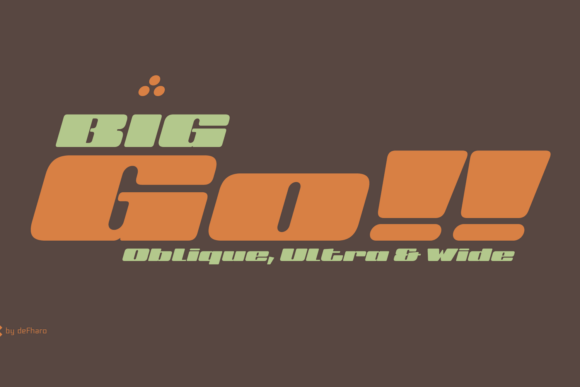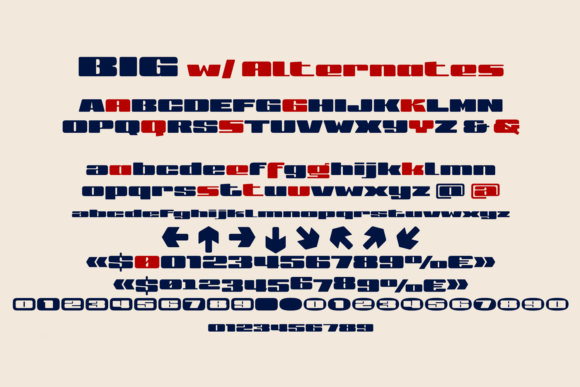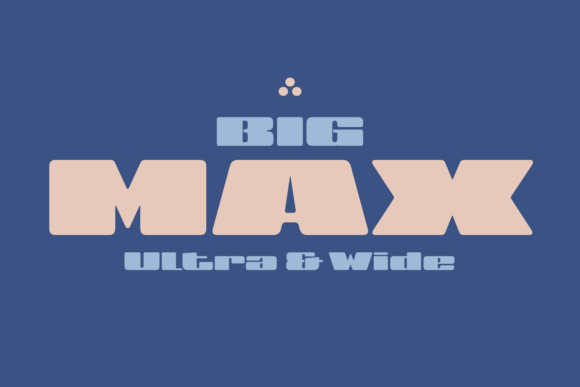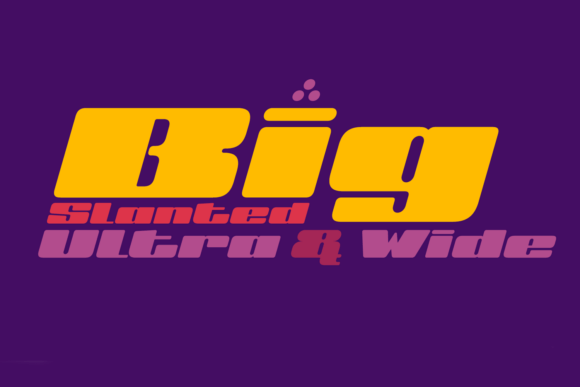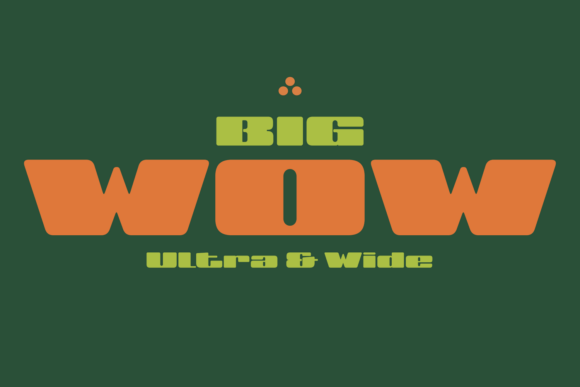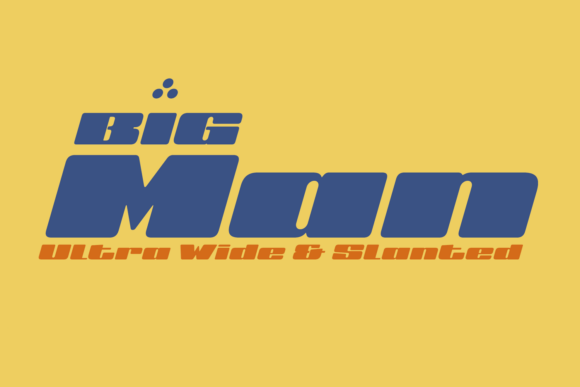
The Moment of Creative Truth: When Designers Need a Font that Makes a Statement
Have you ever stared at a blank page, struggling to find the perfect font to capture the essence of your brand? The frustration is real, but what if you could unleash a font that screams ‘I’m here to make a statement’? That’s where the BIG Slant font comes in – a bold, ultra-wide, and unapologetically expressive typeface designed to dominate space with confidence and clarity.
As a designer, you understand the importance of a font that can elevate your work and leave a lasting impression. The BIG Slant font is not just a pretty face; it’s a powerful tool that can make your text stand out in a crowded market. With its unique slant and expansive proportions, this font is the perfect choice for contemporary branding, editorial headlines, and projects that demand unmistakable visual authority.
- Unique Characteristic: Features a unique, ultra-wide design that can be used to create visually striking headlines and titles
Big Ultra Wide Font Review
I recently had the chance to work with the “Big Ultra Wide Font” and here’s my honest review.
✨ **What works well:** This font is indeed big and ultra-wide, making it perfect for headings and titles. The font is bold and attention-grabbing, which can be great for drawing the user’s attention to important information. The font also supports a wide range of languages, which is a plus for multilingual designs.
✨ Another thing I liked about this font is its consistency. The font’s width is consistent across all weights, which makes it easy to use and predict how it will look in different contexts.
⚠️ **Limitations:** While the font is bold and attention-grabbing, it can also be overwhelming. The ultra-wide width can make it difficult to read in smaller sizes or in narrow columns. Additionally, the font’s boldness can make it look dated or even childish in certain contexts.
⚠️ I also found that the font’s support for certain languages is limited to a subset of characters, which can be a problem for designs that require a full range of characters.
Overall, I would say that the “Big Ultra Wide Font” is a good option for certain types of designs, but it may not be the best choice for more complex or nuanced projects.
Tips for Getting the Most Out of Big Ultra Wide Font
When using Big Ultra Wide Font, keep the following tips in mind:
– Use it sparingly, as it can be overwhelming in large quantities.
– Balance it with other fonts and design elements to create visual interest.
– Experiment with different sizes and colors to find the best combination for your design.
Big Ultra Wide Font is commonly used in:
– Headlines and titles to draw attention.
– Marketing materials, such as posters and flyers.
– Social media graphics and ads.
– Web design elements, such as buttons and headers.